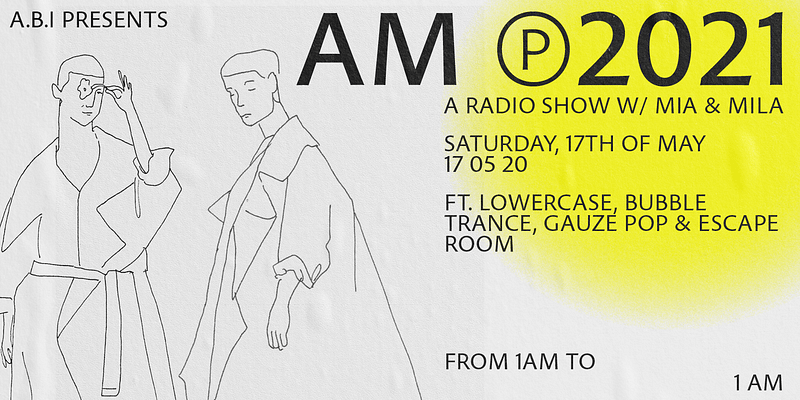
Pelago specimen
Pelago
Pelago is a semi-formal sans-serif type family by Adobe Principal Designer Robert Slimbach. The family has a crisp contemporary appearance and an understated elegance. At display sizes Pelago exhibits subtly swelling stroke endings, animated letter counter shapes, and a moderate degree of stroke modulation — qualities derived from both humanist handwriting and Roman inscriptional lettering. At smaller type sizes these expressive accents recede, revealing a clear and very readable text face that doesn't suffer from the structural rigidity found in conventional sans-serif designs. Pelago is offered in a range of six weights with matching italics, and with broad language coverage including Greek, Cyrillic, and extended Latin.